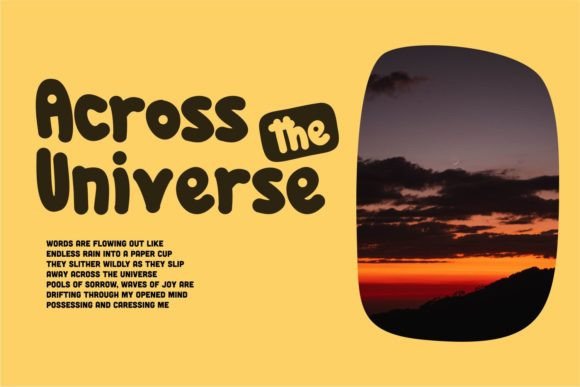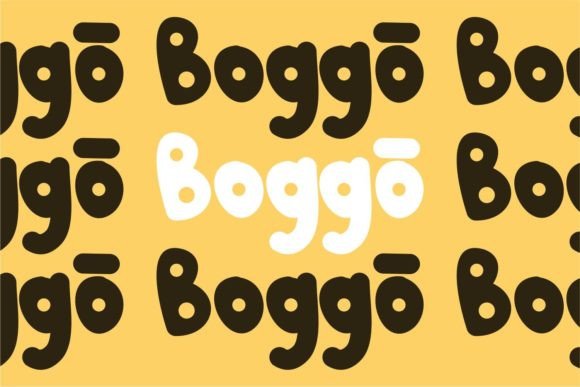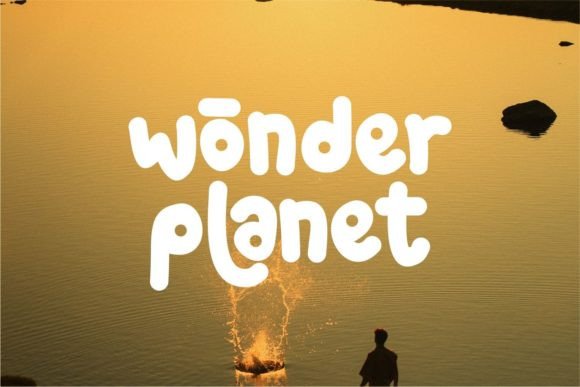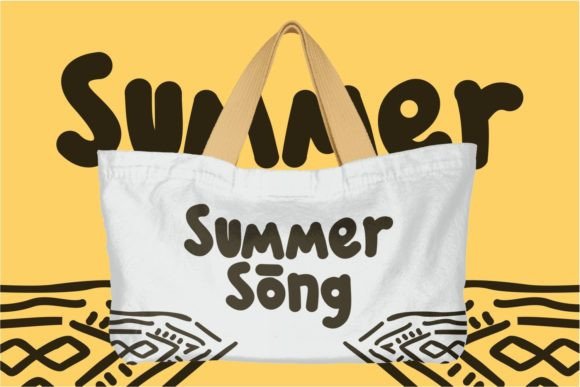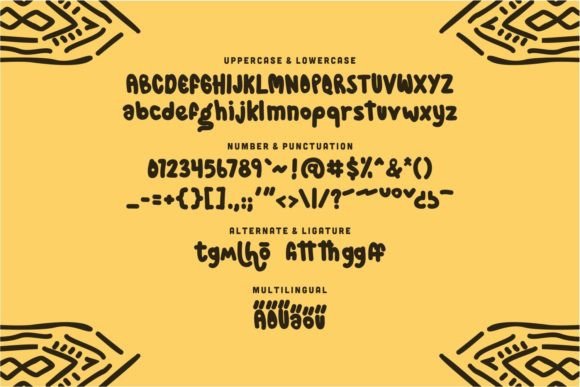
Introducing Glodog Font: The Fun and Bold Display Font for Creative Designs
Are you tired of using the same old fonts for your designs? Look no further! Glodog Font is here to shake things up with its fun and bold display font style. Its friendly and playful look makes it suitable for a wide range of design ideas, from creative projects to commercial use. In this article, we’ll dive into the features and benefits of Glodog Font, and explore how you can use it to take your designs to the next level.
What is Glodog Font?
Glodog Font is a modern display font that is designed to make a statement. Its bold and playful style is perfect for creating eye-catching headlines, titles, and captions. The font features a unique and quirky design, with rounded edges and a friendly demeanor. Whether you’re working on a logo, poster, or social media graphic, Glodog Font is sure to add a touch of personality to your design.
Key Features of Glodog Font
- Fun and playful design: Glodog Font features a bold and playful design that is sure to grab attention.
- Unique and quirky style: The font’s rounded edges and friendly demeanor make it stand out from other display fonts.
- Suitable for a wide range of design ideas: From creative projects to commercial use, Glodog Font is versatile enough to fit any design need.
- Easily readable: Despite its bold style, Glodog Font is easy to read, making it perfect for headlines and titles.
Benefits of Using Glodog Font
So why choose Glodog Font for your designs? Here are just a few benefits of using this fun and bold display font:
- Adds personality to your design: Glodog Font’s unique style is sure to add a touch of personality to your design, making it stand out from the crowd.
- Perfect for creative projects: Whether you’re working on a personal project or a commercial design, Glodog Font is perfect for adding a playful touch.
- Versatile: Glodog Font can be used for a wide range of design ideas, from logos and posters to social media graphics and more.
How to Use Glodog Font in Your Designs
Ready to start using Glodog Font in your designs? Here are a few tips to get you started:
- Pair it with a simple font: Glodog Font’s bold style works best when paired with a simple font. Try pairing it with a clean sans-serif font for a striking contrast.
- Use it for headlines and titles: Glodog Font is perfect for creating eye-catching headlines and titles. Use it to add a touch of personality to your design.
- Experiment with colors: Glodog Font looks great in a variety of colors. Experiment with different colors to find the perfect combination for your design.
| Font Type | Display Font |
| Font Style | Bold, Playful |
| Characters | Uppercase, Lowercase, Numbers, Punctuation |
- Q: What is Glodog Font?
- A: Glodog Font is a fun and bold display font.